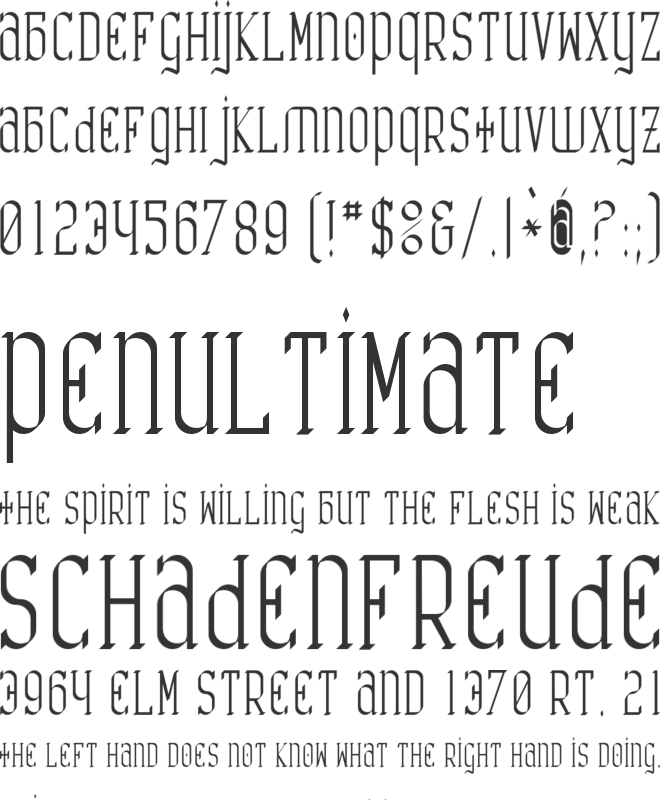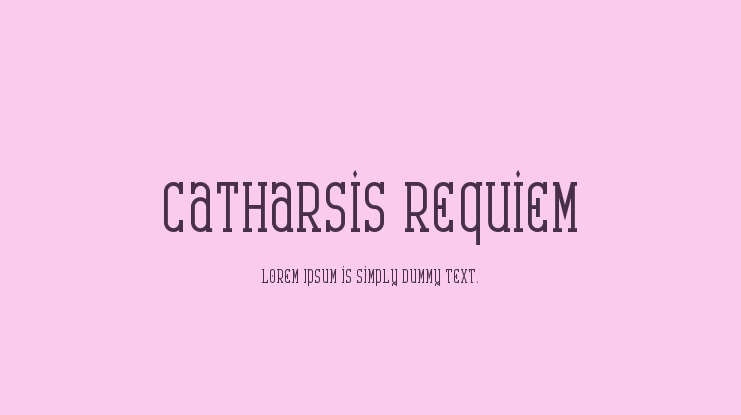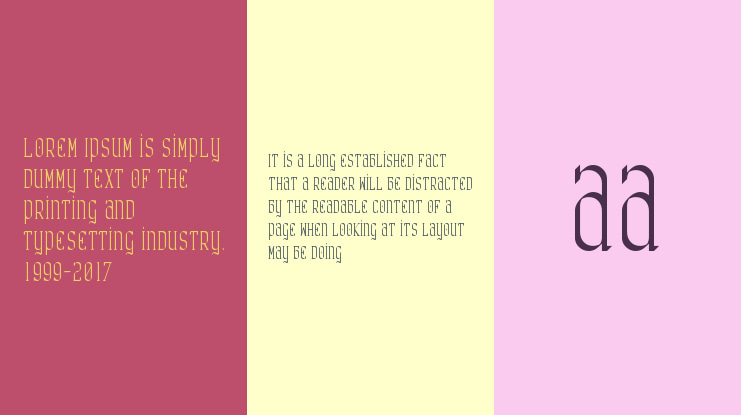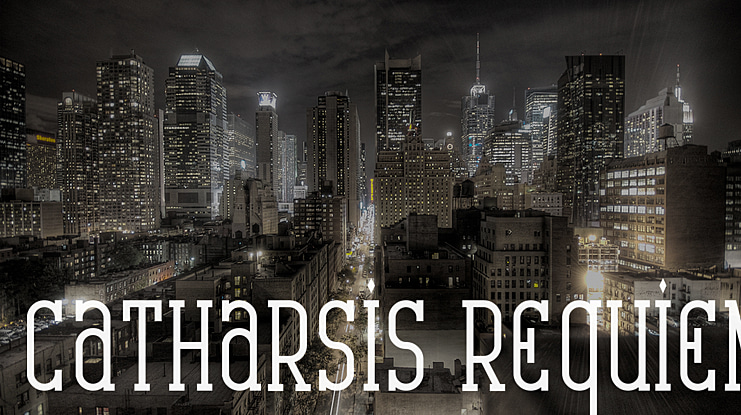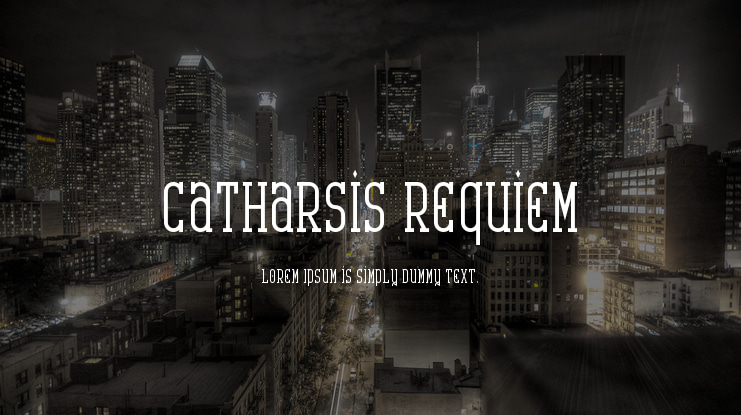
Catharsis Requiem Font Family
Dignified gothic font for inscriptions and the likes. The capital letters are not intended for use as capitals, but simply offer alternate letter forms in some cases.
The bold face isn't just thicker than the regular face, it uses
an isotropic solid line rather than a calligraphic pen.